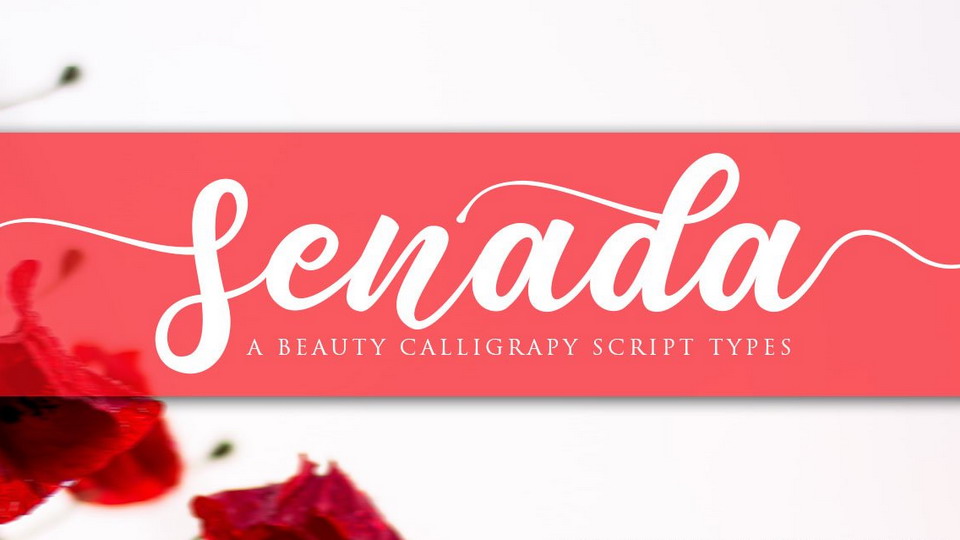
Download Senada font, a lovely bouncy script with a natural & stylish flow. Perfect for making elegant stylish statements – or adding a touch of class to your designs.
Designer: Haksen Studio